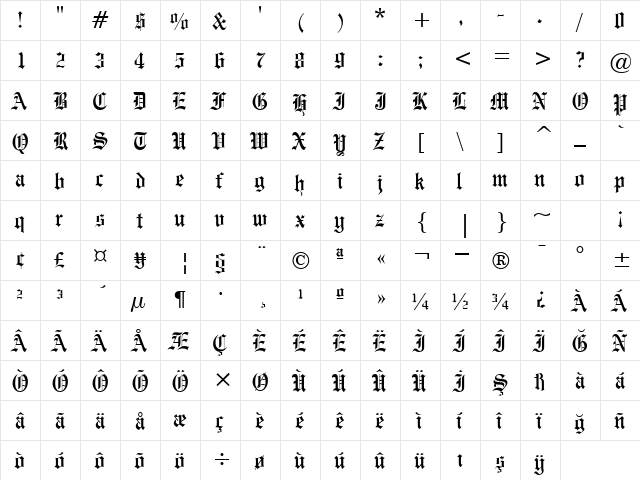
00347 Regular
Design Context for 00347 Typeface
00347 is a composed and adaptable typeface that performs quietly and consistently across a wide range of design contexts.